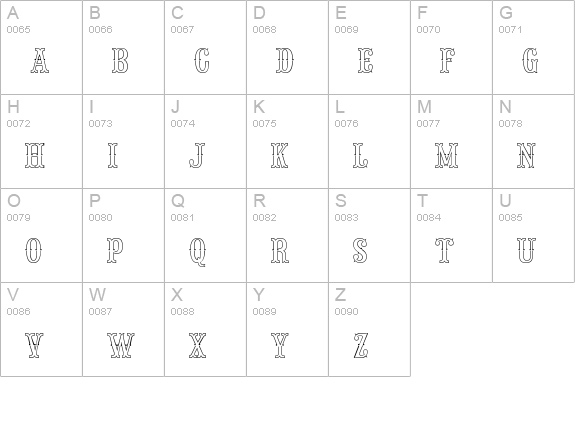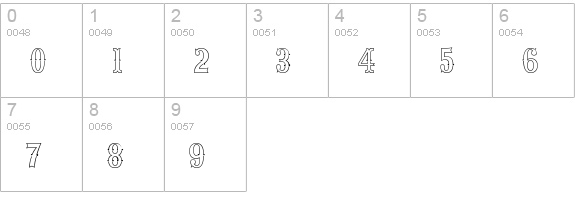
Saloon Girl Fill Lines Font Details
Saloon Girl Fill Lines font is a captivating and ornate typeface that exudes vintage charm and sophistication. Inspired by the glamorous and enchanting era of saloon girls, this font brings a touch of old-world elegance to any design project. With its intricate and detailed lines, Saloon Girl Fill Lines font adds a sense of opulence and refinement to your typography. Each letter is delicately crafted with flourish and flair, capturing the essence of the bygone days of saloons and dance halls. This font is perfect for bringing a touch of nostalgia to your designs, whether you're creating invitations for a themed party, designing a vintage-inspired logo, or adding a touch of class to your website. Its versatile nature allows it to be used in a variety of contexts, from elegant wedding stationery to bold and eye-catching signage. What makes Saloon Girl Fill Lines font even more appealing is that it is available for free download at FontsMarket.com. This means that you can add this stunning typeface to your collection without any cost. Whether you're a professional designer or a hobbyist, you can enjoy the beauty and grace of Saloon Girl Fill Lines font without breaking the bank. So why wait? Download Saloon Girl Fill Lines font today and let its timeless elegance elevate your design projects to new heights. Whether it's for personal or commercial use, this freely available font is sure to captivate and impress.